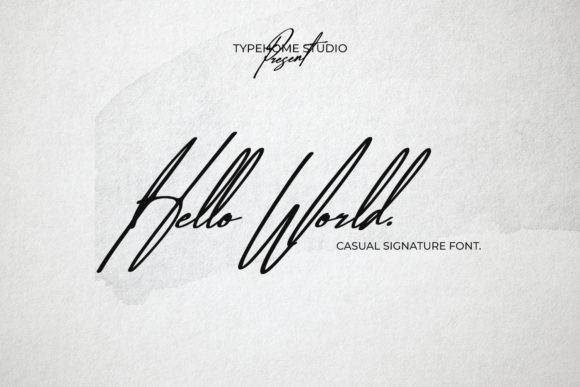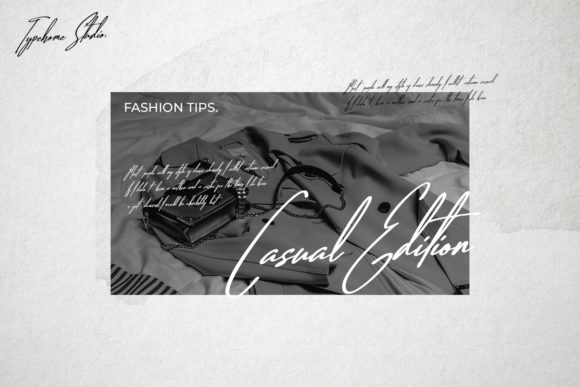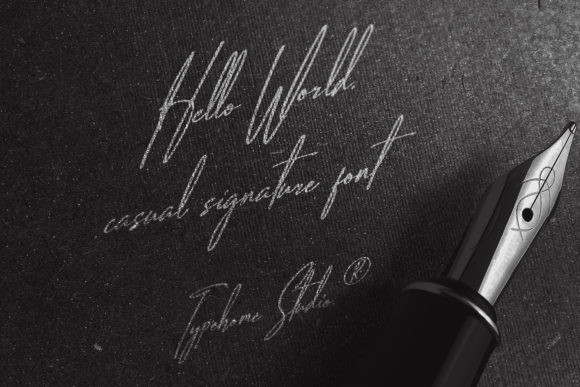
About Hello World Font
Introducing Hello World: A Simple Signature Handwritten Font
Say hello to Hello World, a delightful signature handwritten font that exudes elegance and simplicity. This font is the perfect choice for various design projects, including branding, product packaging, invitations, quotes, t-shirts, labels, posters, and logos.
With its flowing and natural handwritten style, Hello World creates a sense of personal touch and authenticity in your designs. The simplicity of its strokes adds a touch of sophistication, making it suitable for a wide range of applications.
For branding projects, Hello World adds a refined and elegant signature to your business identity. It leaves a lasting impression on your audience, conveying a sense of professionalism and trustworthiness.
Product packaging becomes more charming and appealing with Hello World, as it adds a touch of authenticity to your brand’s messaging. Whether you’re selling handmade goods or premium products, this font elevates the overall look and feel of your packaging.
Invitations take on a more personal and heartfelt tone with Hello World. Its signature style conveys warmth and friendliness, making your event announcements more inviting and memorable.
Hello World is perfect for quotes and inspirational messages. Its simple yet elegant strokes add a touch of grace and beauty to your words, allowing them to resonate with your audience.
T-shirts featuring Hello World become a stylish and fashionable statement. Its signature appearance adds a touch of uniqueness and exclusivity to your apparel designs, making them stand out in a crowd.
Labels and posters benefit from the simplicity and elegance of Hello World. Whether you’re creating product labels or promotional materials, this font adds a touch of sophistication to your designs.
Finally, Hello World creates a beautiful and memorable signature for your logo. Its handwritten style adds a personal and artistic touch, making your brand identity more distinctive and memorable.
In conclusion, Hello World is a simple signature handwritten font that brings elegance and authenticity to your design projects. Its flowing and natural style makes it perfect for branding, product packaging, invitations, quotes, t-shirts, labels, posters, and logos. Embrace the charm of Hello World and let it elevate your designs to new heights.